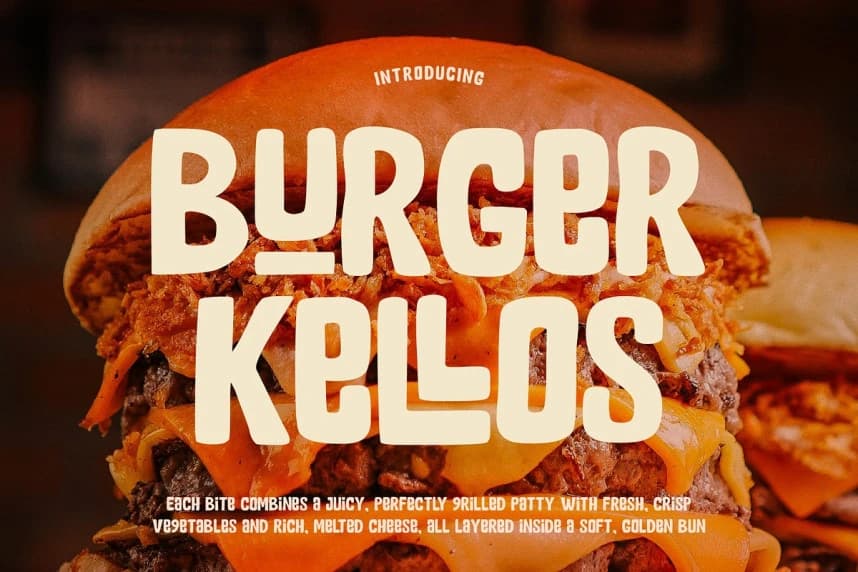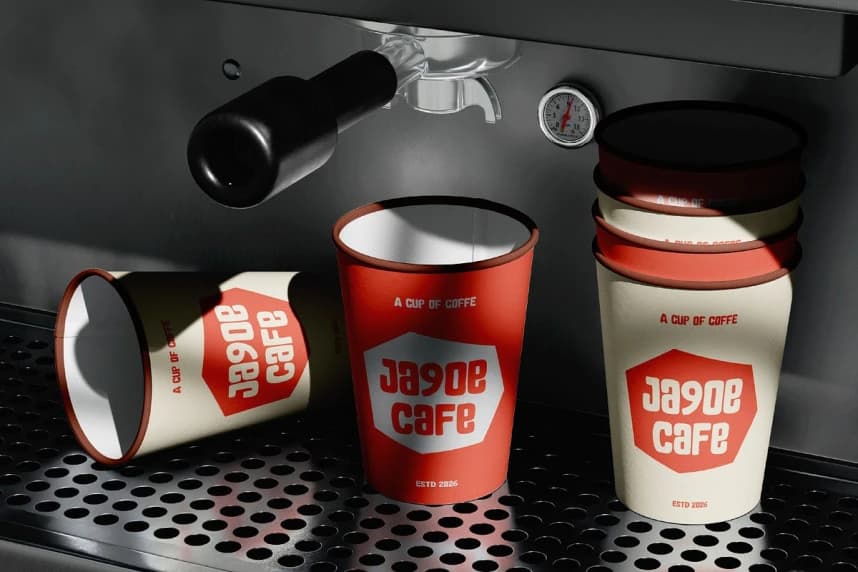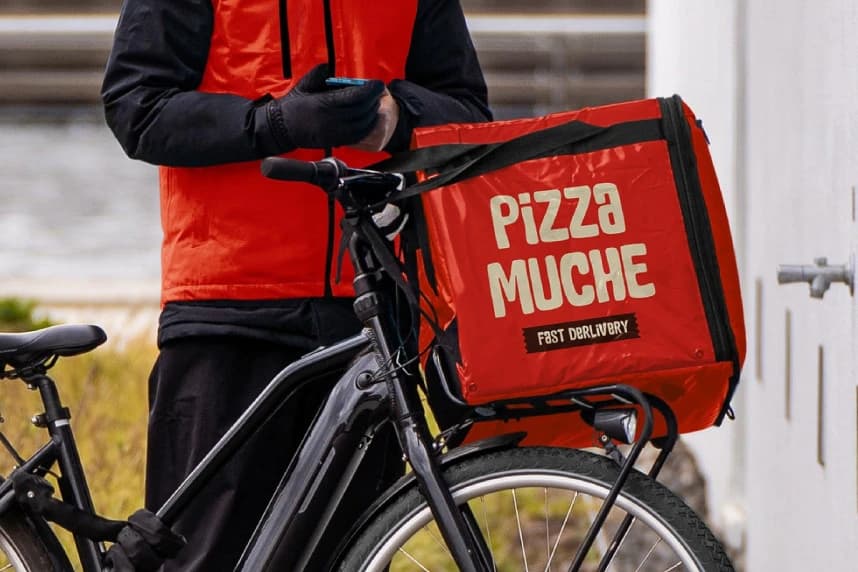
Selera Font
Selera Font is a modern bold display typeface designed to create a fun, flavorful, and attention-grabbing visual experience. Inspired by energetic branding styles, Selera features chunky letterforms, smooth edges